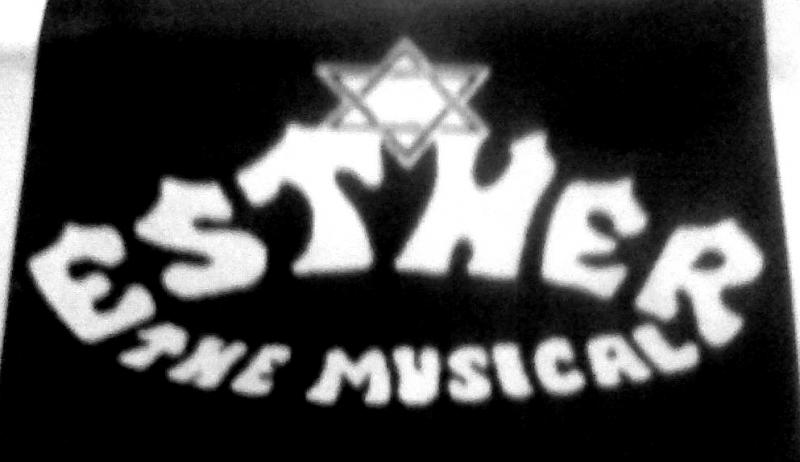
Font ID or close?
Yes I know it's terrible.
I think it's hand drawn.
Does anyone have any suggestions as the image I have is rough, and the website's isn't any better?
trace the worst of it, Ester and just insert some horrid puffy font for the word Musical. the lines in the worst part all seems pretty straight so node editing should be a breeze. you could try sending it to Eric the Vector Doctor to see if he can do something with it as his prices are really good and it will save you a ton of time and heart ache